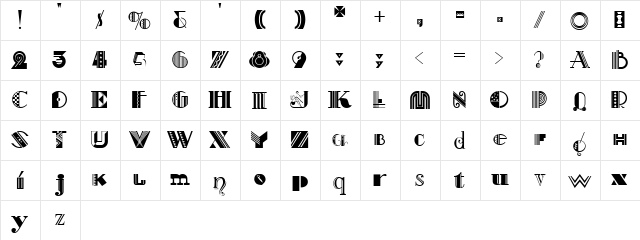
Art-Decorina Regular
| Designer | Gophmann A.L. (cyr.code page) |
Design Context for Art-Decorina Typeface
Art-Decorina is a composed and adaptable typeface that performs quietly and consistently across a wide range of design contexts.